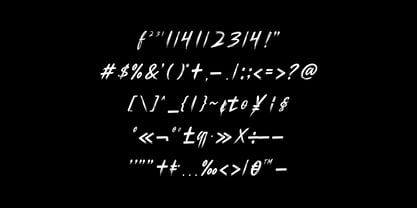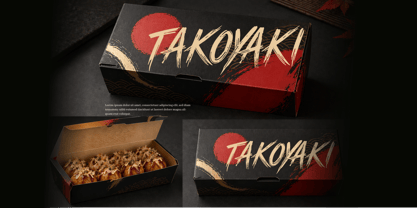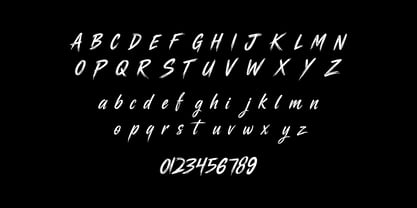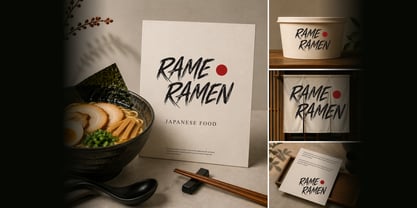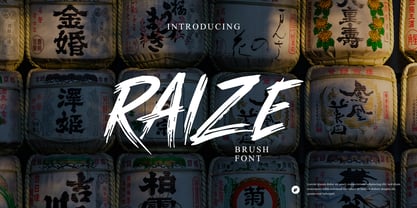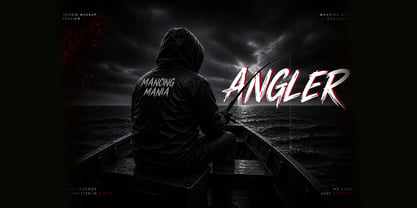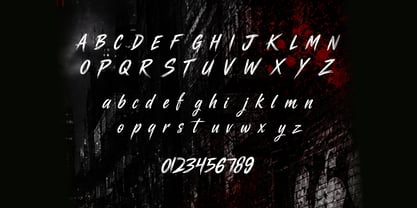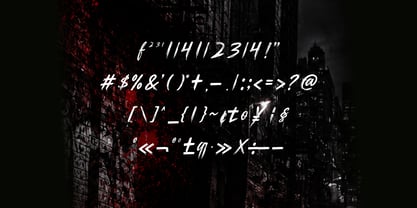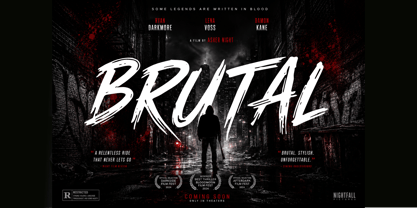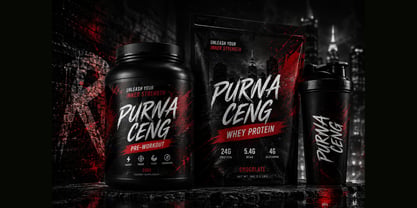
Raize
RAIZE – Brush Display Font is a bold handcrafted brush typeface designed to bring strong energy, urban attitude, and expressive style into your creative projects. Inspired by street art, graffiti culture, cinematic action posters, and modern branding trends, this font delivers a raw and authentic brush texture with dynamic strokes that instantly grab attention.
Perfect for creating eye-catching headlines, logo designs, apparel branding, packaging, posters, music covers, gaming titles, movie promotions, social media content, YouTube thumbnails, and other display purposes that need a powerful visual impact.
Features
• Uppercase & lowercase letters
• Numbers & punctuation
• Authentic brush texture
• Easy to use
• Perfect for branding and display projects
Best For
• Streetwear branding
• Action movie posters
• Urban design themes
• Gaming and esports graphics
• Music cover artwork
• Product packaging
• Social media promotion
• Logo and headline design
RAIZE combines aggressive brush strokes with modern urban aesthetics, making it an excellent choice for designers who want to create bold, energetic, and unforgettable visuals.